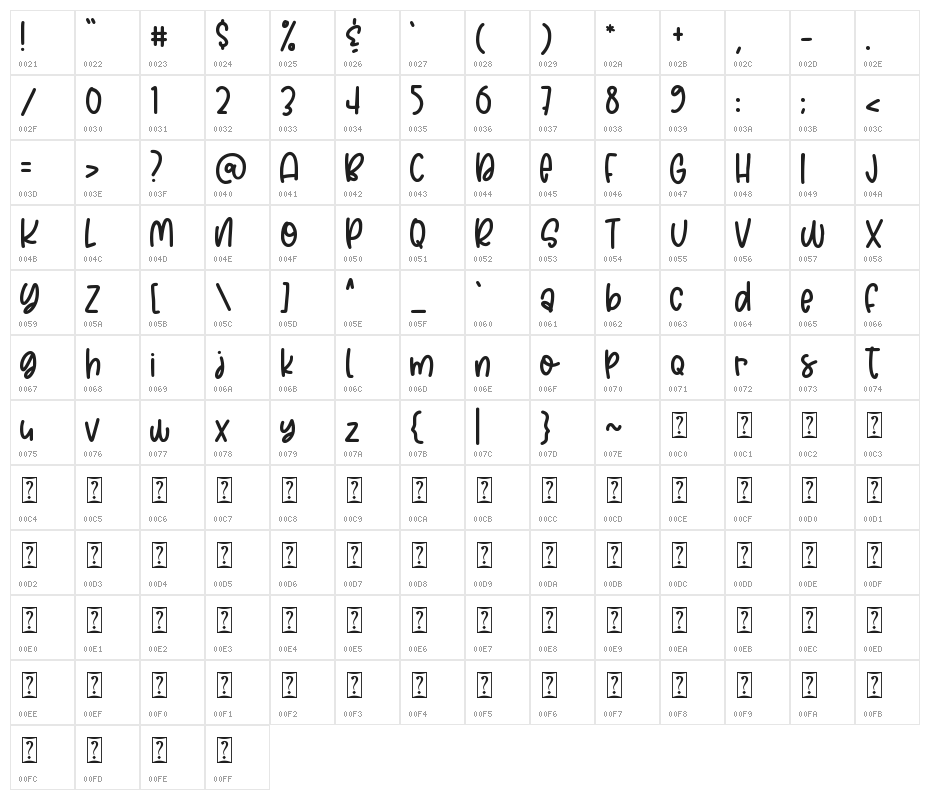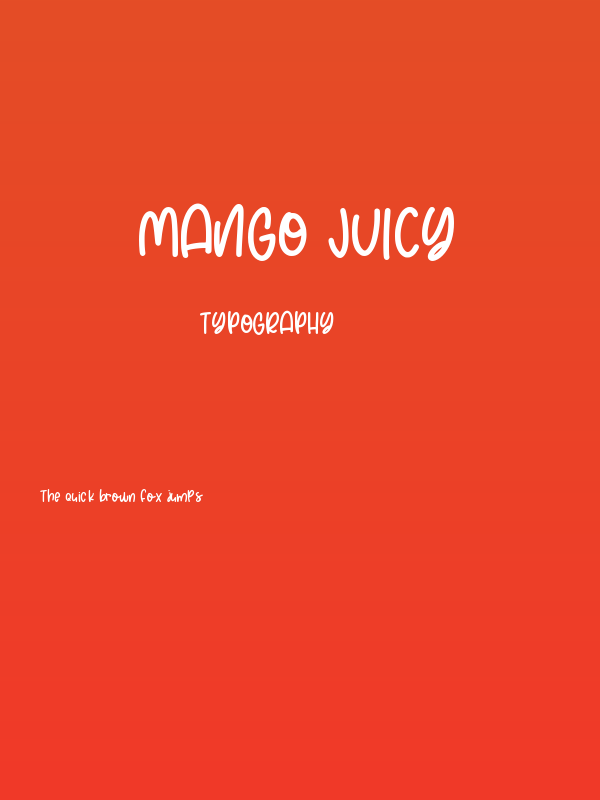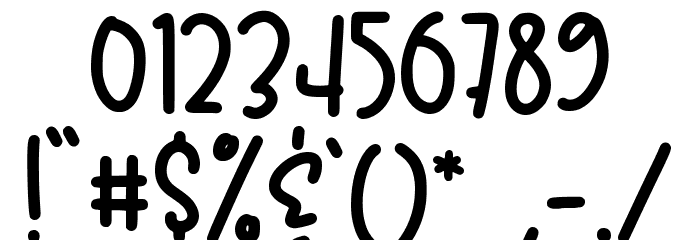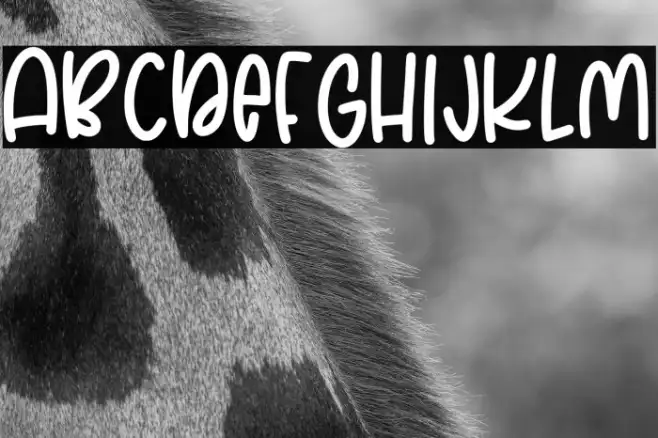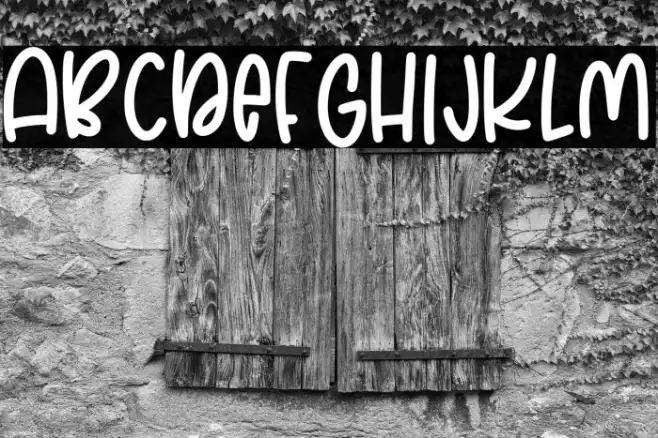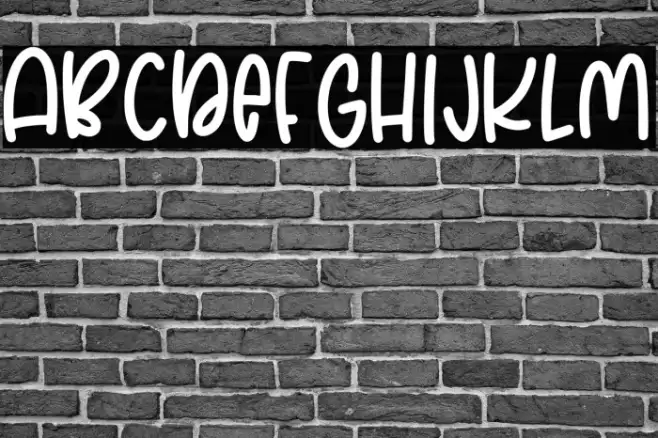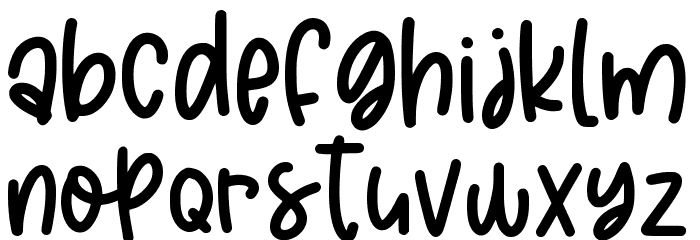
manGo Juicy Font
manGo Juicy Description
This playful and energetic font features a handwritten style with bold, rounded strokes that convey a sense of fun and creativity. The characters are slightly slanted, adding a dynamic flow to the text. The uppercase and lowercase letters maintain a consistent style, with a whimsical touch that makes them stand out. The numbers and special characters are designed to match the lively aesthetic, ensuring a cohesive look across all text elements. This font is perfect for projects that require a personal and informal touch, such as children's books, greeting cards, or playful branding.
| Proposed Projects | Ideal for children's books, greeting cards, playful branding, and creative projects. |